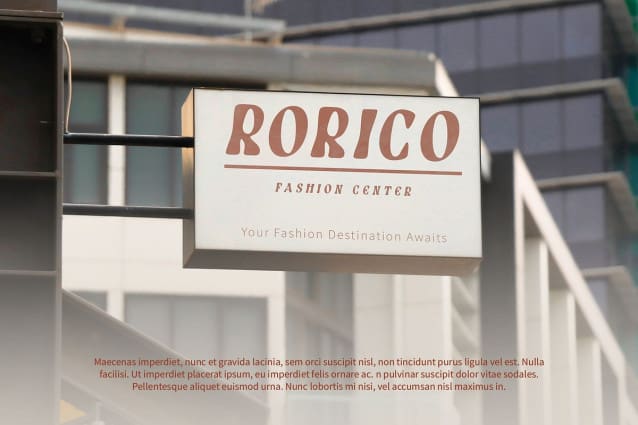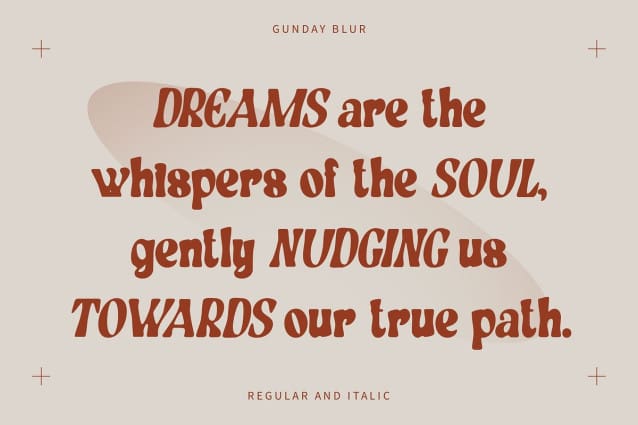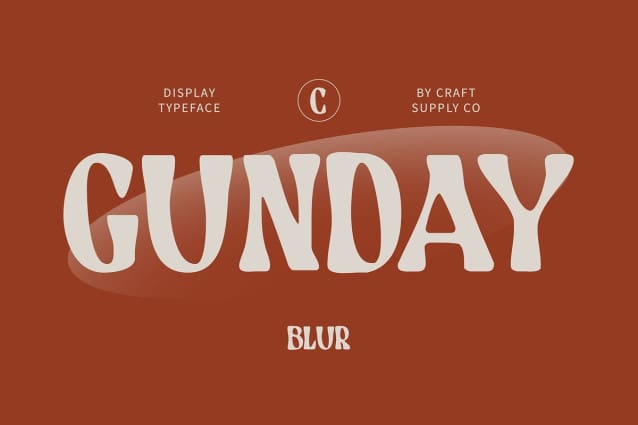
Gunday Blur Font
Gunday Blur Font is a bold serif font that combines the timeless charm of vintage design with a contemporary blur effect. Featuring robust lines and distinctive serifs, this font emphasizes classic elegance and a nostalgic aura.
Soft Dreamy Blur for a Refined Look The blur effect introduces a soft, dreamy dimension, giving the font a refined and somewhat ethereal quality. This visual softness enhances the font’s retro appeal, creating a sophisticated look that bridges past and present.
Ideal for Nostalgic and Elegant Designs Perfect for designs that seek to capture both historical charm and modern sophistication, Gunday Blur is well-suited for retro event posters, elegant editorial designs, and branding that requires a warm and classic touch. Its unique blend of bold serif details and dreamy blur makes it a standout choice for conveying a sense of vintage beauty with a contemporary twist.
Elegance with a Modern Edge Gunday Blur’s fusion of retro-classic design and modern blur effect makes it ideal for projects that need a touch of nostalgic elegance combined with a fresh, sophisticated look. It’s a versatile font for creating impactful and stylish designs that resonate with both historical and contemporary sensibilities.